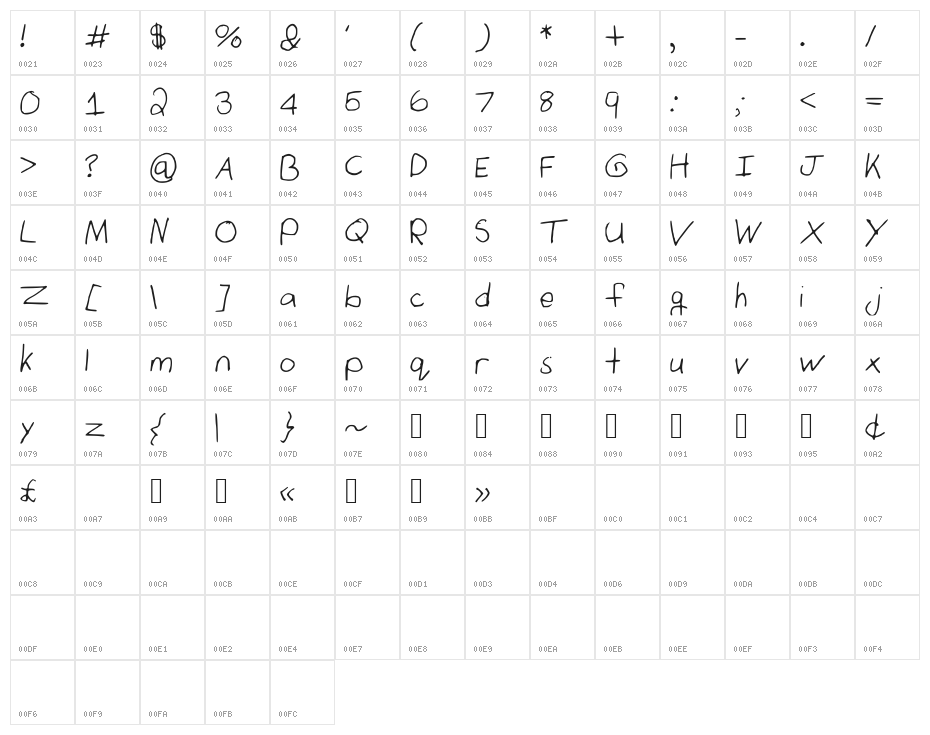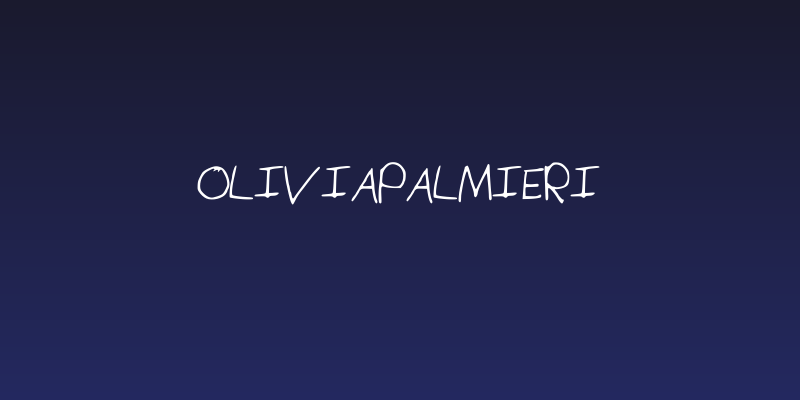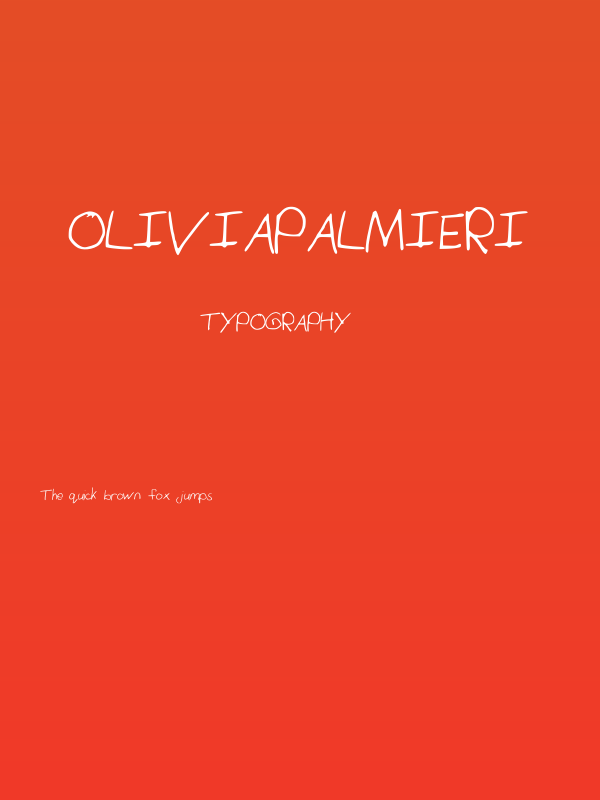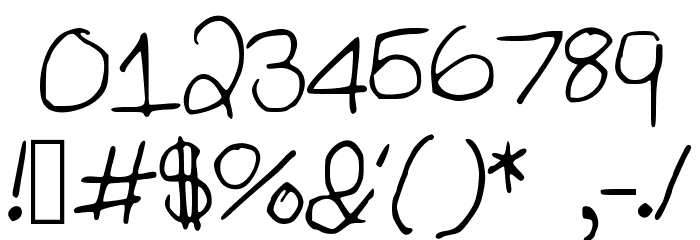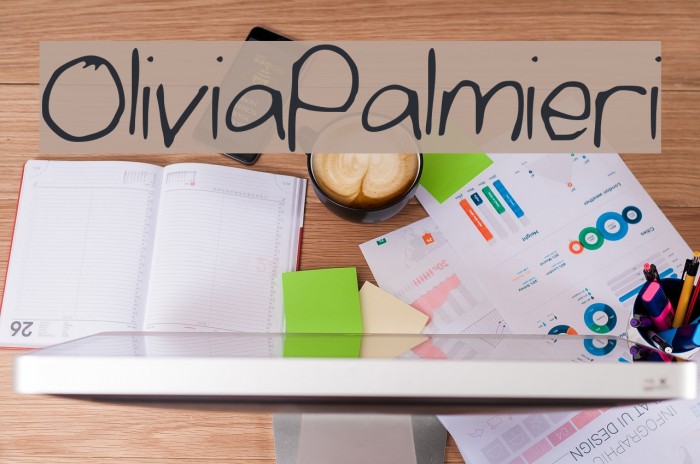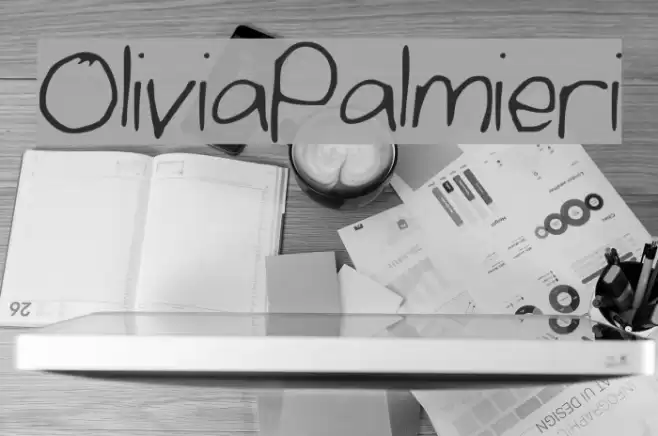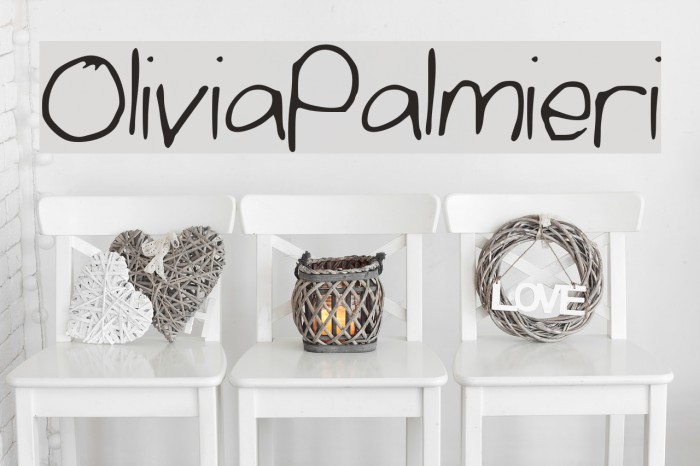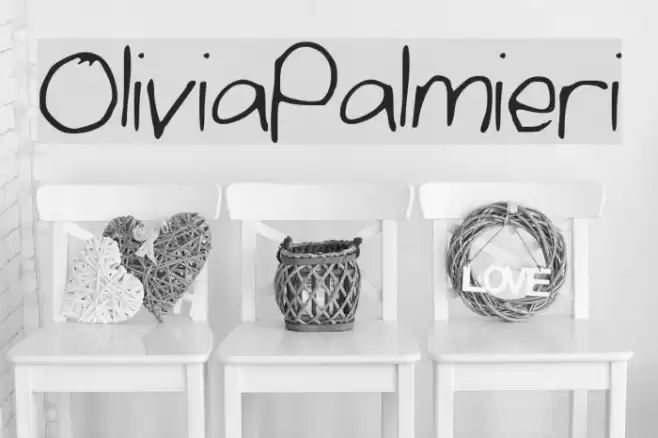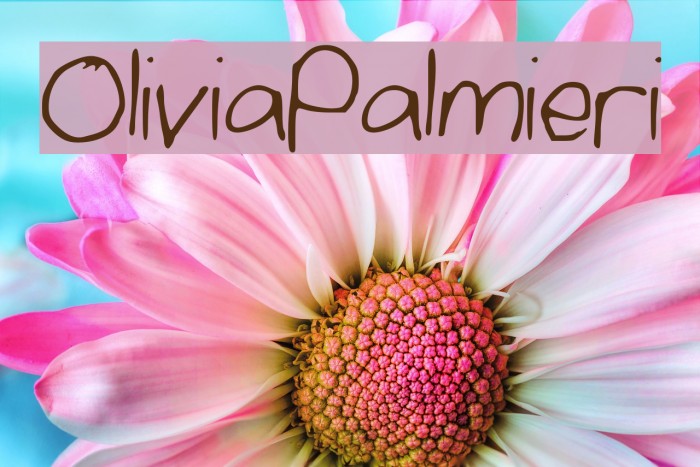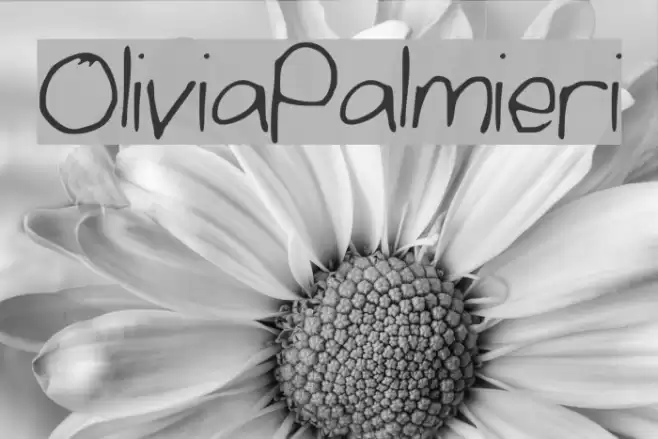
OliviaPalmieri Font
OliviaPalmieri Description
This font exudes a playful and casual handwritten style, characterized by its irregular strokes and slightly uneven baseline. The letters are crafted with a personal touch, giving them a warm and approachable feel. The uppercase letters maintain a consistent height, while the lowercase letters vary slightly in size, adding to the font's informal charm. The numerals and special characters are designed to match the overall aesthetic, ensuring a cohesive look across all text. This font is perfect for projects that require a personal, friendly touch.
| Use Case | Logos, Headlines, Informal text |
| Proposed Projects | Ideal for greeting cards, personal blogs, children's books, and informal branding projects. |